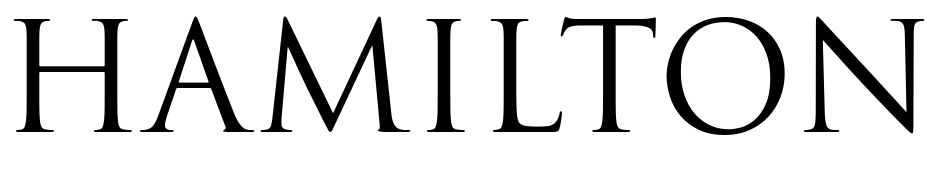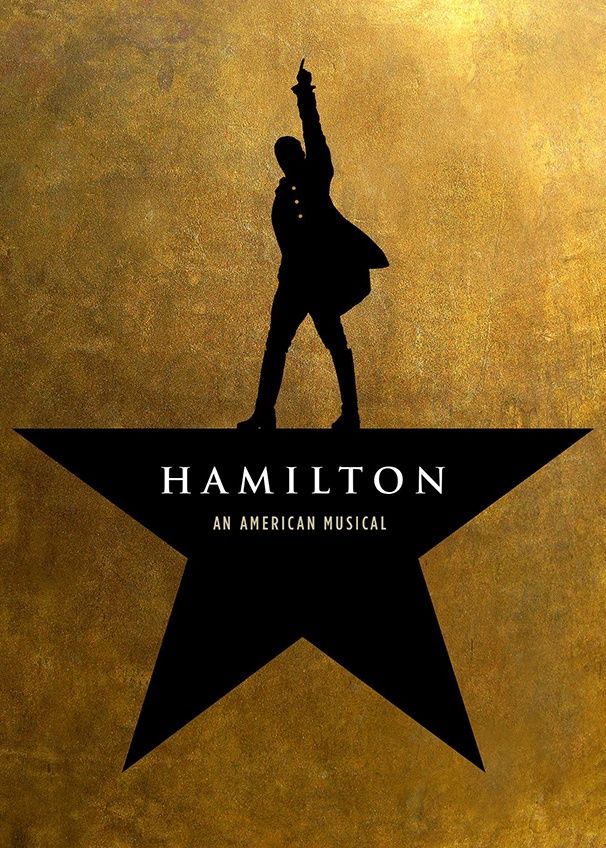
Hamilton (musical) Font
EntertainmentHamilton is a revolutionary hip-hop musical that tells the story of America's founding father, Alexander Hamilton, and the birth of the United States through music, dance, and historical events.
The title of the ''Hamilton'' musical in the poster is displayed in the elegant old style serif typeface, Trajan, designed by Carol Twombly in 1989 for Adobe. The text "An American Musical" is set in the Gotham Bold Condensed font.